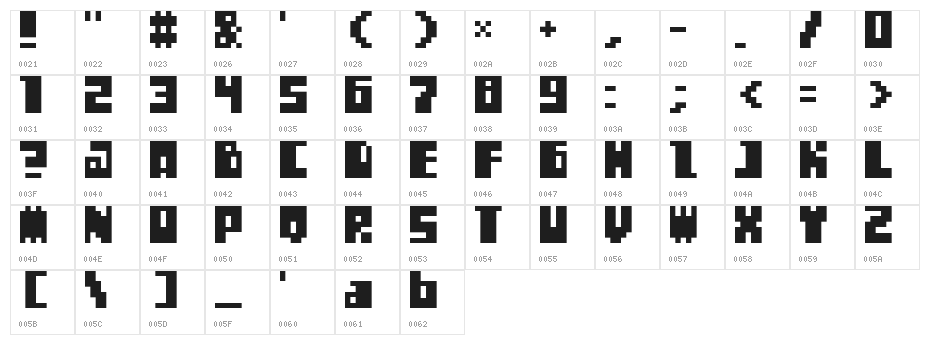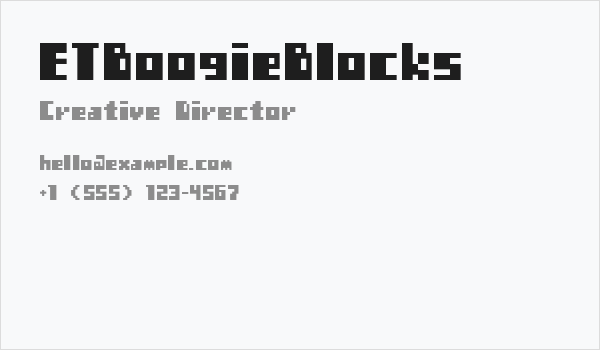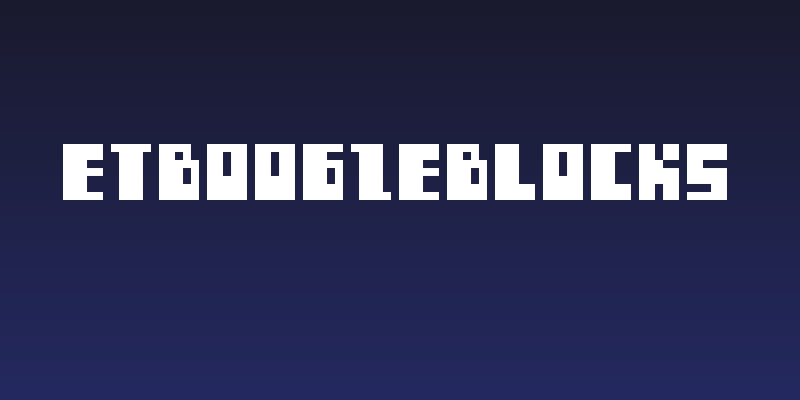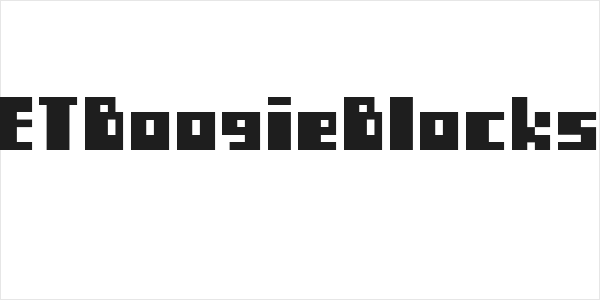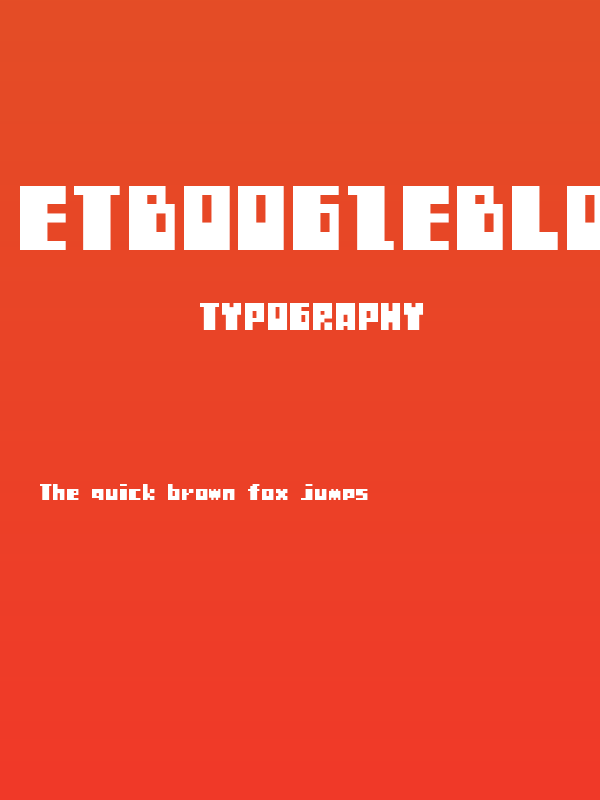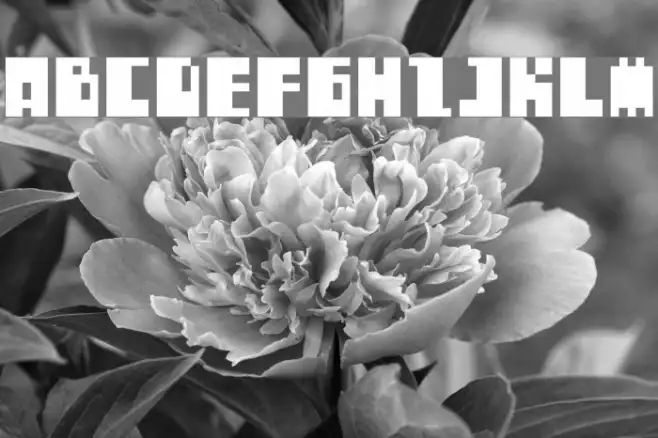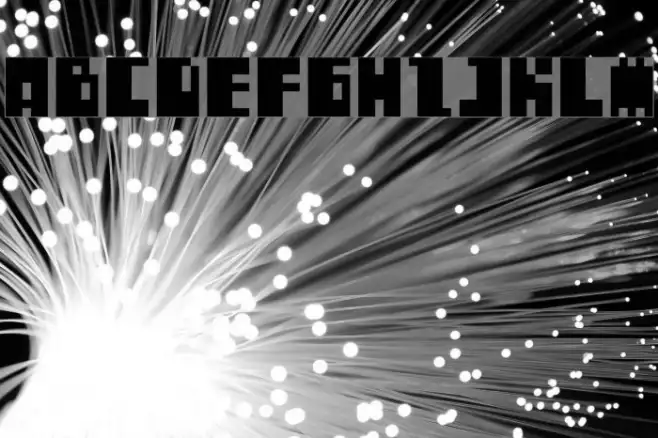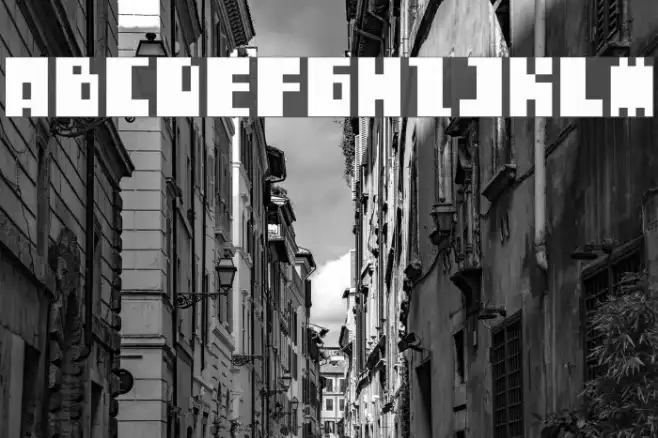
ETBoogieBlocks Font
ETBoogieBlocks Description
This font features a bold, blocky design with a pixelated aesthetic reminiscent of retro video games. The characters are uniformly thick, creating a strong visual impact. Each letter and number is constructed with sharp, angular edges, contributing to a distinctly digital feel. The uppercase and lowercase letters maintain a consistent height, enhancing the uniformity of the typeface. The spacing between characters is tight, which adds to the compact and cohesive appearance. The font includes a full set of numerals and a variety of special characters, making it versatile for various design needs.
| Proposed Projects | Ideal for video game graphics, retro-themed posters, digital art projects, and any design requiring a nostalgic, tech-inspired look. |